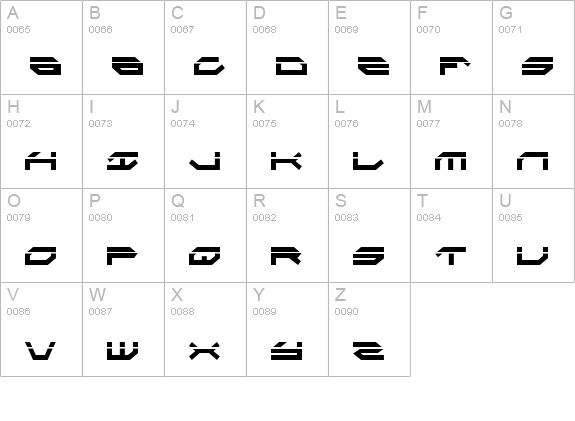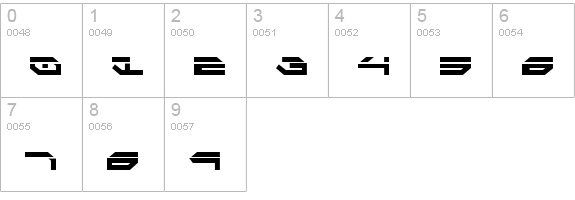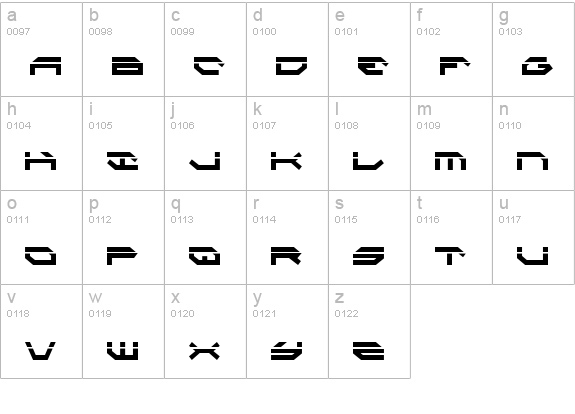
Taskforce Laser Condensed is a distinctive, condensed-width variant in the Taskforce typeface family \xE2\x80\x94 well suited to design and typography projects.
Taskforce Laser Condensed is a sleek and modern display font that exudes a futuristic and high-tech vibe. With sharp edges and a condensed design, this font is perfect for projects that require a cutting-edge and edgy look. Whether you are designing a poster, logo, or website, Taskforce Laser Condensed will give your project a bold and dynamic appearance. The best part? Taskforce Laser Condensed is available for free download at FontsMarket.com. You can easily add this striking font to your collection without breaking the bank. So why wait? Elevate your designs with Taskforce Laser Condensed today!